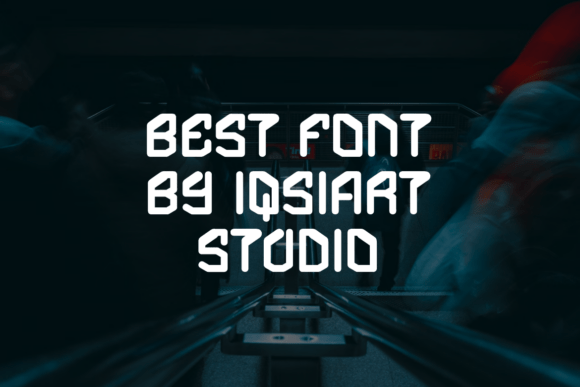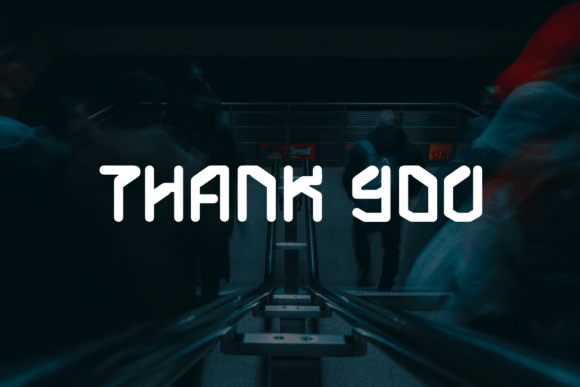
The Designer’s Dilemma: Finding the Perfect Font for Your Next Project
I still remember the countless hours I spent scrolling through font libraries, searching for the perfect typeface for a client’s futuristic gaming website. The brief was simple: create a design that screamed “cutting-edge tech” and “innovation.” But, as any designer knows, finding the right font can be a daunting task. That’s when I stumbled upon **Celson Font**, a futuristic display font that instantly caught my attention.
First Impressions: A Love Affair with Celson
With its cutting-edge geometric style and modular sci-fi feel, Celson is a game-changer for designers looking to add a sleek, modern edge to their work. The font’s squared forms, rounded terminals, and bold angles make it perfect for tech branding, digital interfaces, gaming titles, and cyberpunk aesthetics. Here are some things I love about Celson:
- ✨ **Unique and attention-grabbing**: Celson commands attention and makes a statement in any design.
- ✅ **Versatile**: Suitable for a wide range of applications, from digital interfaces to print materials.
- 💻 **Perfect for tech and gaming**: The font’s futuristic feel makes it an excellent choice for tech brands, gaming titles, and sci-fi projects.
A Few Quirks to Keep in Mind
While Celson is an amazing font, it’s not without its limitations. Here are a few things to consider:
- 🤔 **Limited use in body text**: Due to its bold and geometric nature, Celson might not be the best choice for lengthy body text.
- ⚠️ **Requires careful kerning**: As with any font, kerning is crucial to ensure Celson looks its best.
The Story Behind Celson: Designer Inspiration
The story behind Celson’s creation is one of passion and innovation. Designed with the modern digital landscape in mind, Celson aims to bring a fresh, futuristic feel to the world of typography. Its geometric style and modular feel are inspired by the latest advancements in tech and gaming, making it a perfect fit for designers looking to push the boundaries of their work.
| Font Name | Celson Font |
| Author | IqsiartStudio |
| What makes Celson unique? | Its cutting-edge geometric style, modular sci-fi feel, and bold angles make it perfect for tech branding, digital interfaces, and gaming titles. |
| Is Celson suitable for body text? | While Celson is a beautiful font, it’s best suited for headings and titles due to its bold nature. For body text, a more traditional font might be more suitable. |